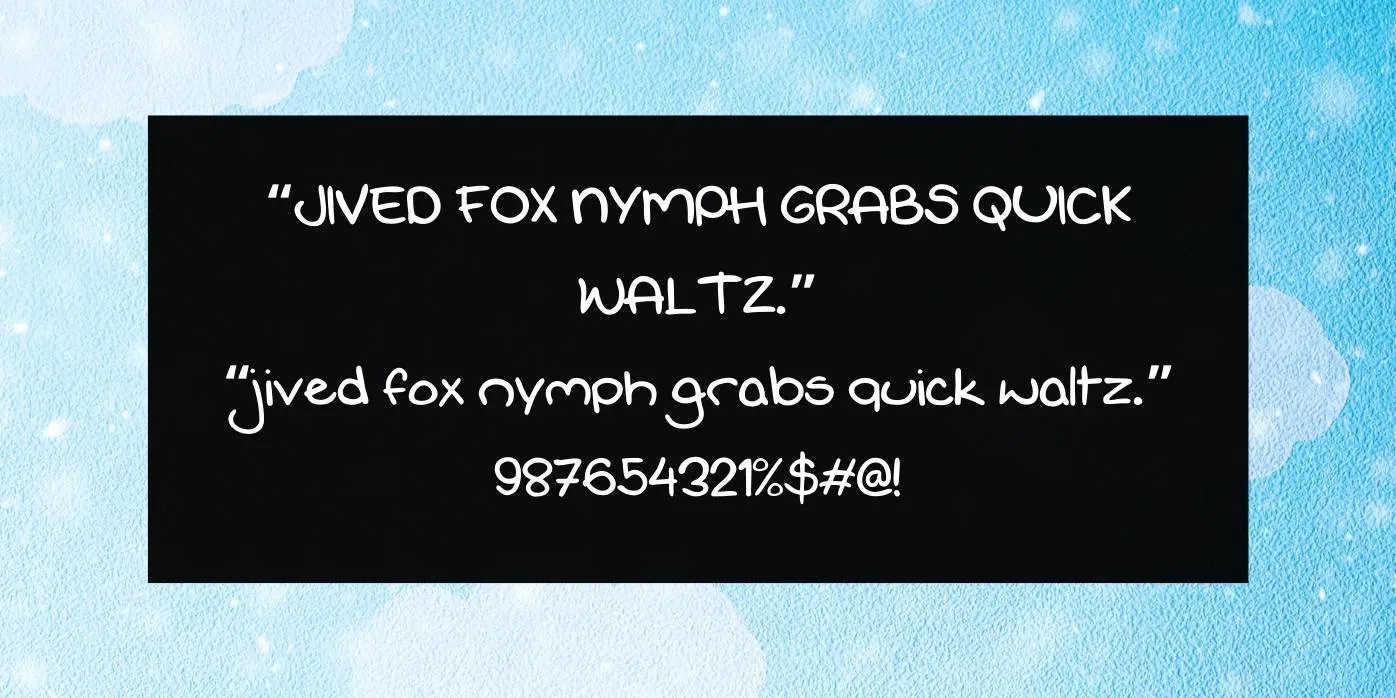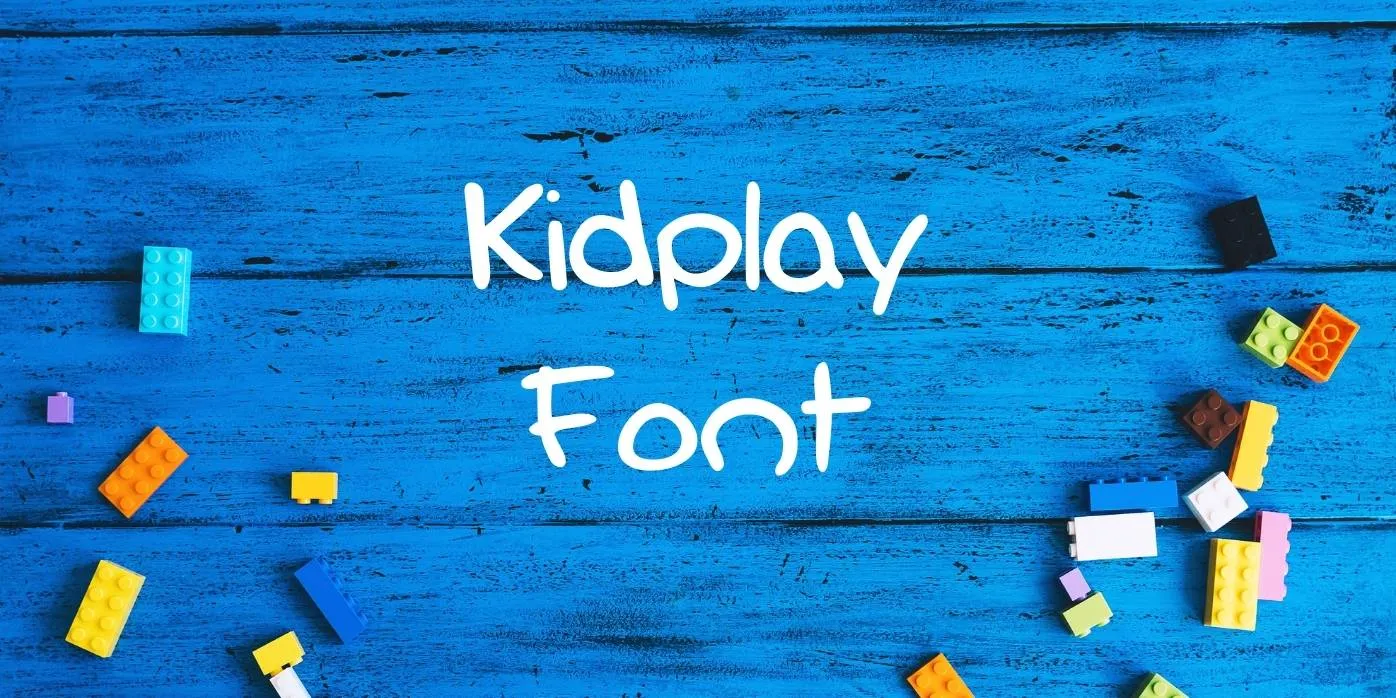
Kidplay Font
Kidplay Font is a fun, playful font perfect for young children. It is available in two styles – regular and bold. The regular style is ideal for younger children, while the bold style is perfect for older kids or those who want to make a statement. Kidplay Font was created by Brian Willson, a graphic designer, and father of two young children.
Brian was inspired to create the font after seeing how much his own kids loved playing with letters and numbers. He wanted to create a font that would be both fun and easy for kids to read. It has a thin texture style and has a pairing personality with other handwritten style typefaces just like luckiest guy font. It is based on the proportions of a child’s hand, which makes it easy for them to trace the letters.